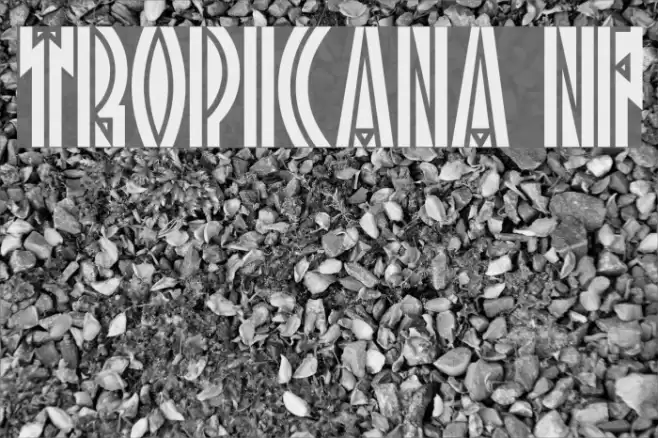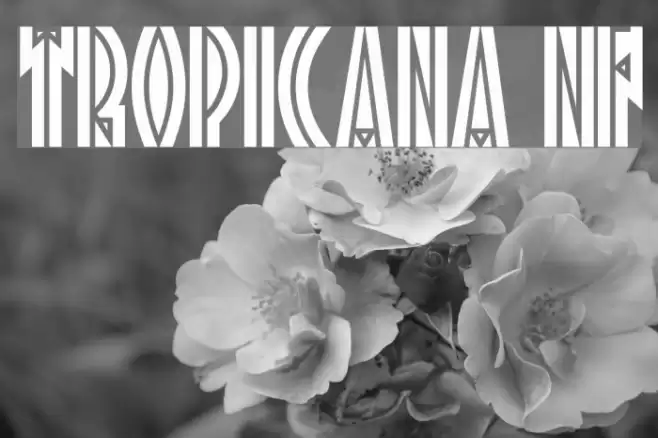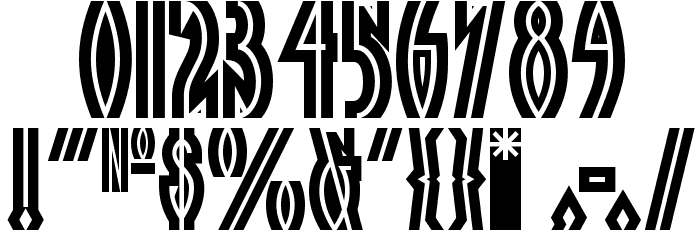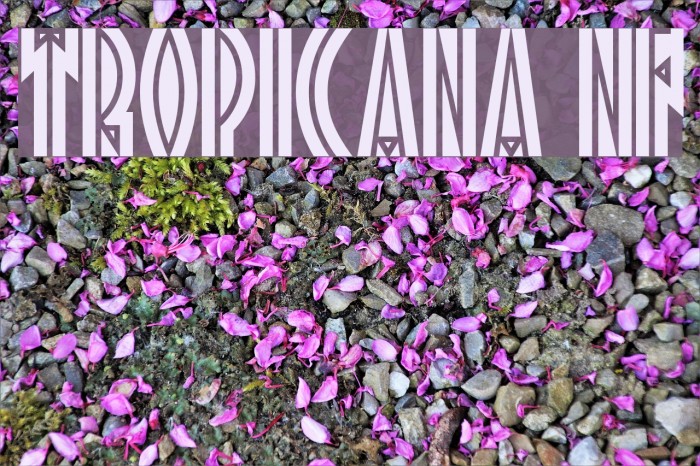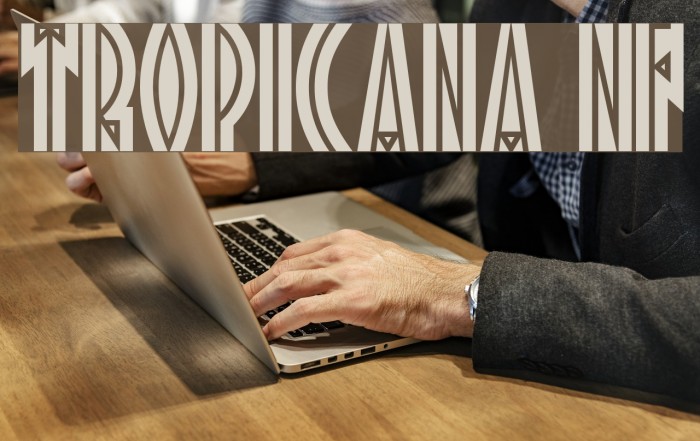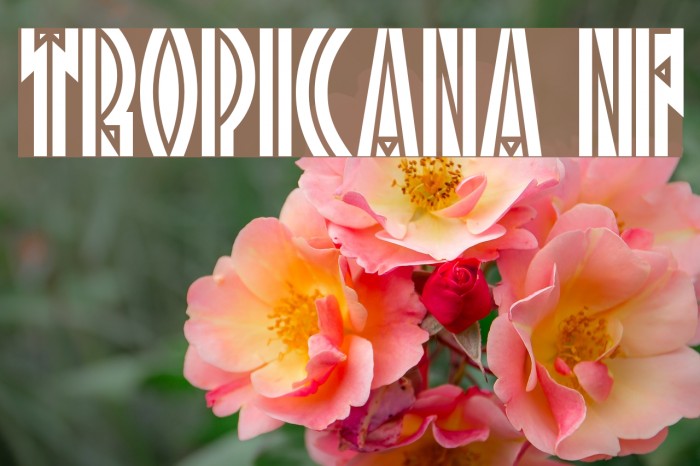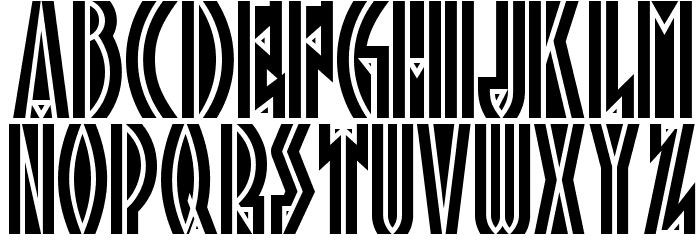
Tropicana NF Font
Tropicana NF Description
This font features a bold and striking design with a strong geometric influence. The characters are constructed with thick vertical lines and sharp angles, creating a sense of drama and intensity. The uppercase letters are particularly distinctive, with unique cutouts and shapes that add to the font's decorative appeal. The lowercase letters maintain the same boldness and geometric style, ensuring consistency throughout. Numbers and special characters are equally bold and stylized, making this font ideal for attention-grabbing designs.
A bold, geometric font with dramatic, decorative elements from Script fonts.
- Proposed Projects: Ideal for posters, logos, and branding projects that require a bold and eye-catching typeface.